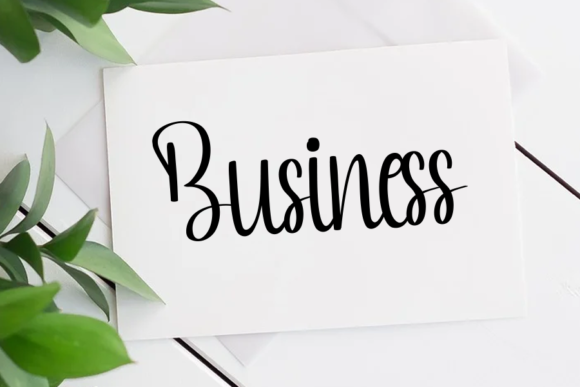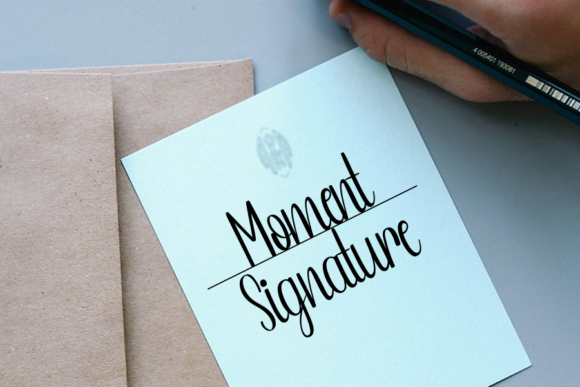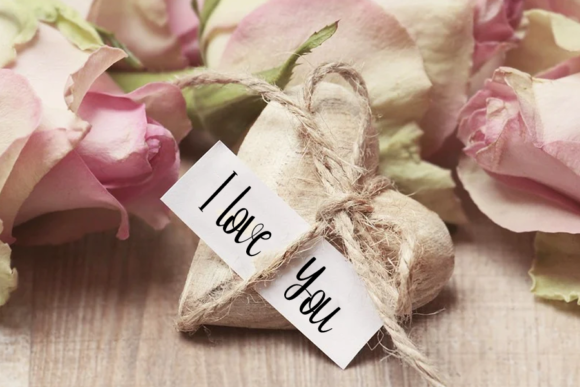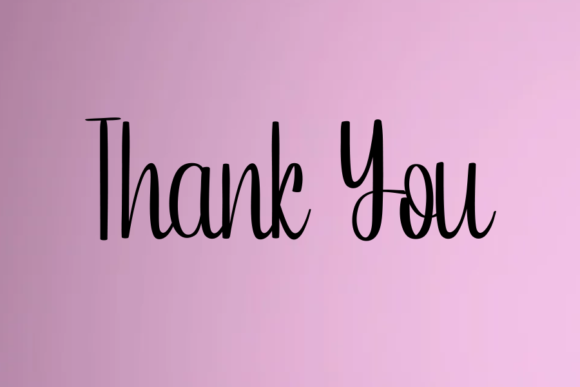
Sublimation Font
Sublimation is an enchanting handwritten font. This versatile font has a wide spectrum of applications ranging from greeting cards to headlines and is guaranteed to add a romantic feel to your next project!